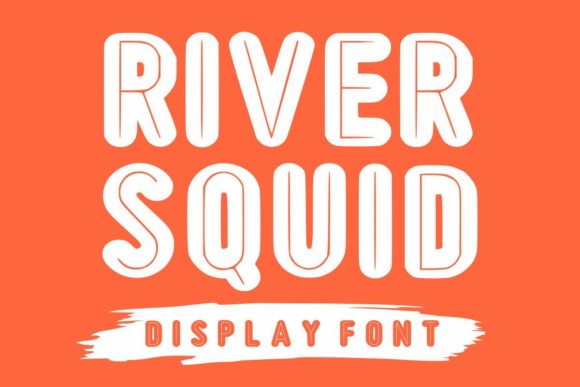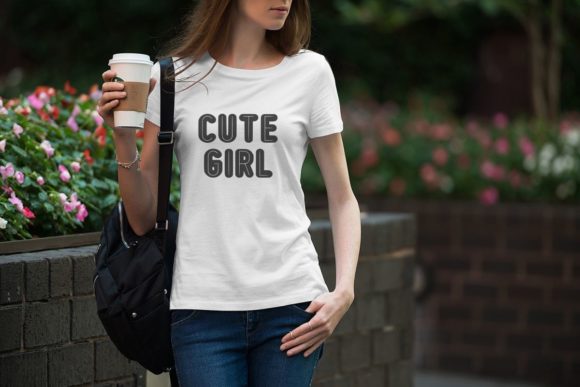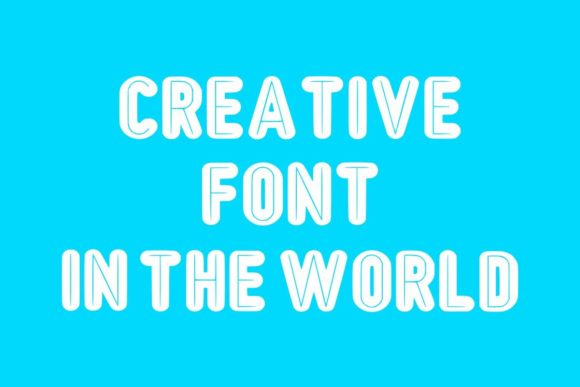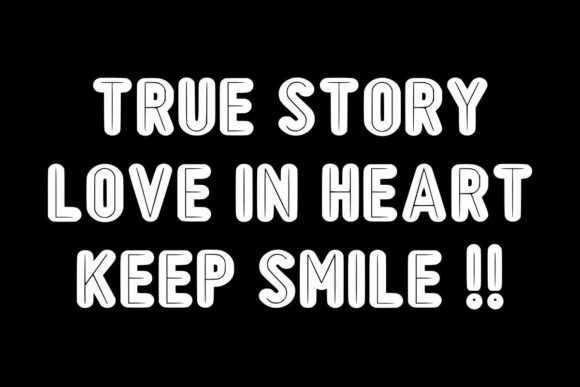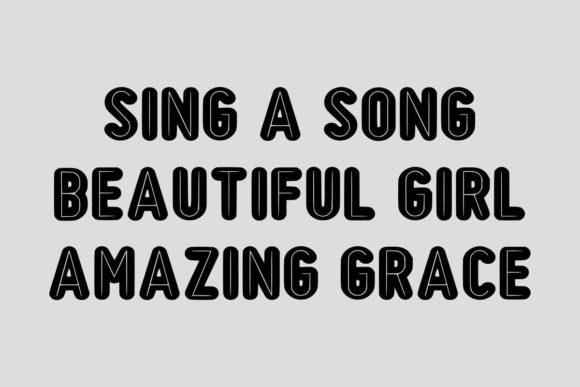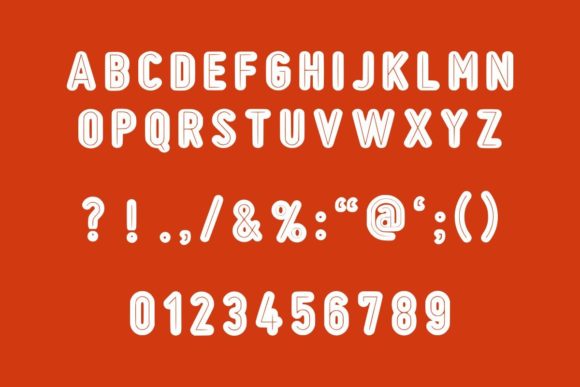
Introduction to River Squid Font
River Squid is a cool, bold, and thick lettered display font.
Its informal style and casual vibe will make this font a go-to choice for each of your creations that require a relaxed touch It is suitable for any product packaging, invitation, quote, t-shirt, label, posters, logos that you wish to develop.